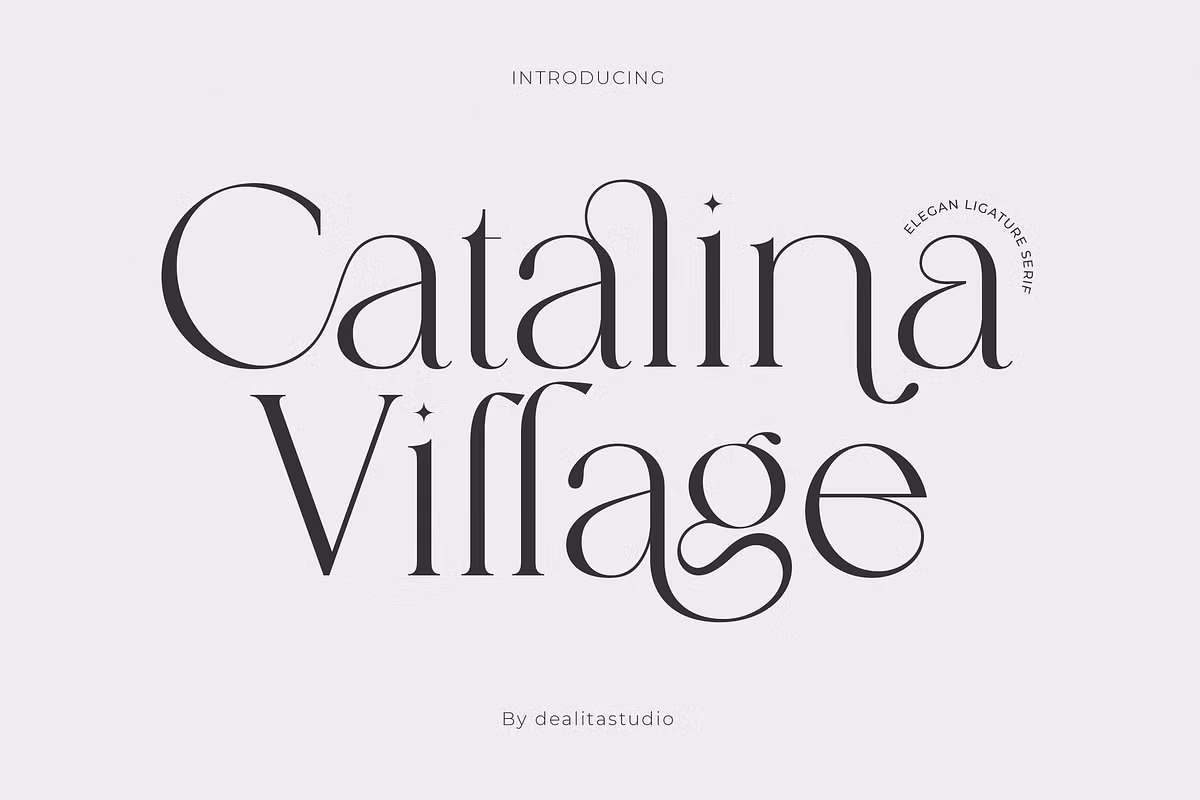
Catalina - Classy Ligature font Free Download
Catalina - Classy Ligature Font Free Download is a refined and elegant typeface featuring stylish ligatures that bring a luxurious, modern feel to branding, invitations, logos, and editorial designs. Its high-end aesthetic and graceful flow make it perfect for projects that demand sophistication. Please note that you must purchase this font for commercial use, but it is available as a free download for testing purposes. Whether you're designing for fashion, beauty, or upscale events, Catalina - Classy Ligature Font Free Download delivers timeless charm and professional polish to elevate your visuals.